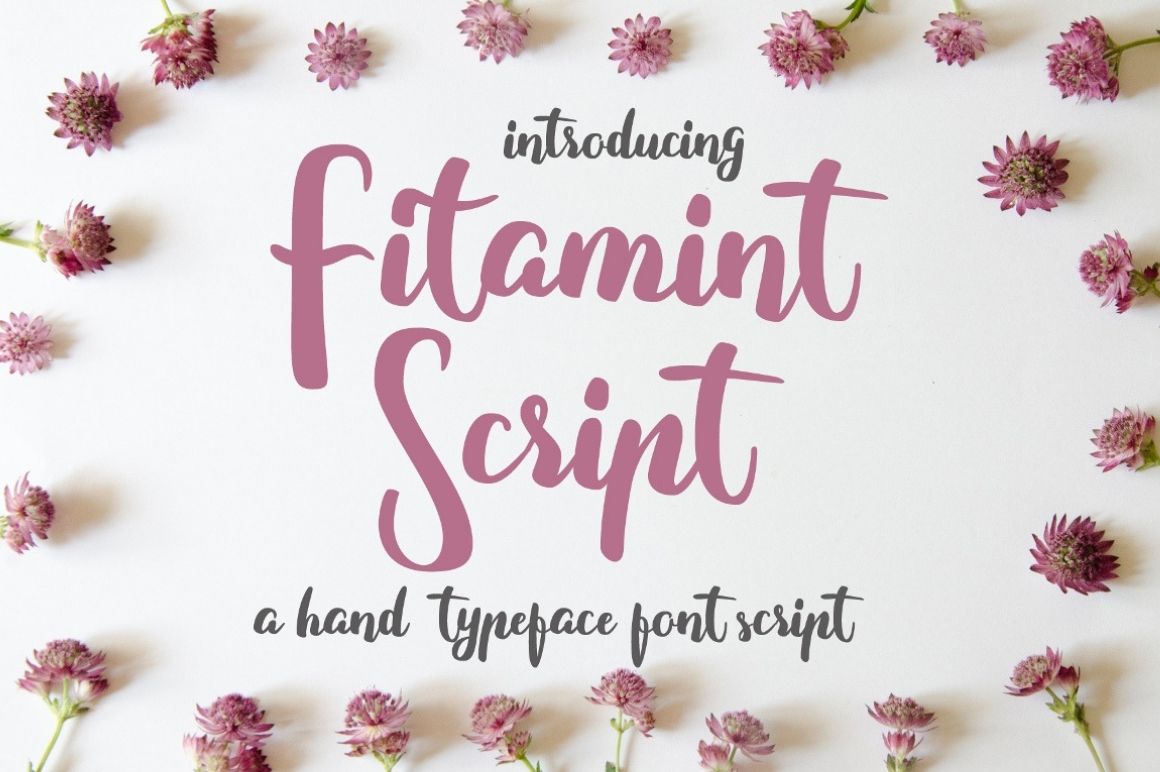
Fitamint Free Font
Fitamint is a new hand typeface, a free commercial font. This font is perfect for titles and headlines.
Fitamint is a smooth and elegant font script which is perfect for company logo, greetings, invitations, branding, posters, flyers, book covers, quotes, etc.